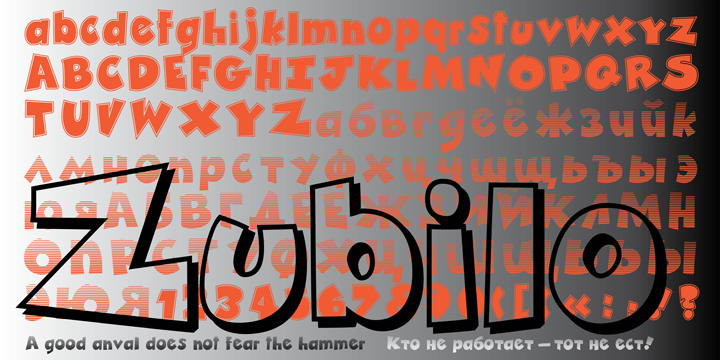
Zubilo Font is perfect for industrial branding, construction company logos, mechanical engineering graphics, urban street art, bold advertising campaigns, automotive designs, heavy machinery signage, and rugged display typography.
What makes Zubilo Font exciting is its powerful industrial character that combines raw strength with precise engineering aesthetics, creating a distinctive typeface that embodies durability and mechanical precision. This robust sans-serif features bold construction, angular details, and technical elements that evoke the world of heavy industry and manufacturing, making it ideal for brands seeking to communicate strength, reliability, and industrial expertise.
The Zubilo Font family includes Regular, Bold, and Black weights, each maintaining the characteristic industrial strength and mechanical precision that define this distinctive typeface's rugged personality and technical appeal.
Zubilo Font Free Download provides access to a typeface that masterfully captures the essence of industrial design and engineering excellence. This powerful font brings authentic manufacturing aesthetics to contemporary projects, making it essential for construction companies, engineering firms, and industrial brands targeting professional audiences. The font's robust construction and technical details ensure excellent performance in demanding applications while its distinctive character creates memorable brand recognition in competitive markets. Whether designing heavy equipment branding, construction site signage, or industrial marketing materials, this font delivers the strength and credibility that technical audiences expect. Its industrial heritage and mechanical precision make it indispensable for projects celebrating manufacturing excellence, engineering innovation, and the fundamental role of industry in building modern civilization, ensuring communications project competence and reliability.